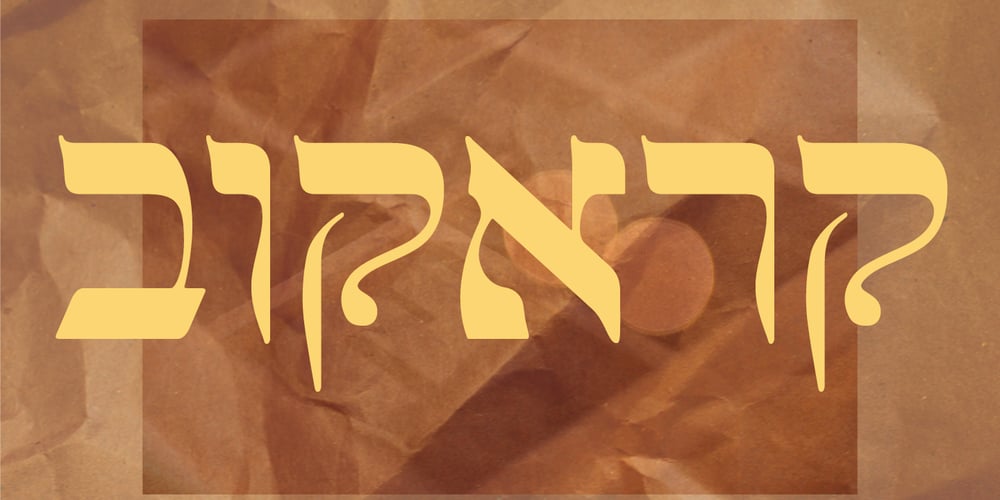
Krakow MF
Krakow MF font
Krakow MF Font Family was designed by Zvika Rosenberg and published by Masterfont. Krakow MF contains 2 styles and family package options. Inspired by old engraving and tombstones in the Synagogue in the Jewish quarter in Krakow. This font contains lots of ligatures (well supported by Adobe Apps).